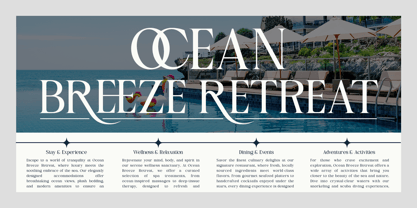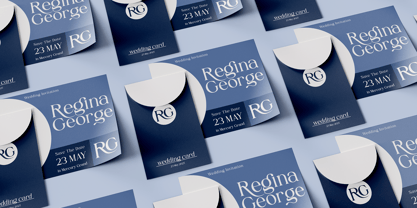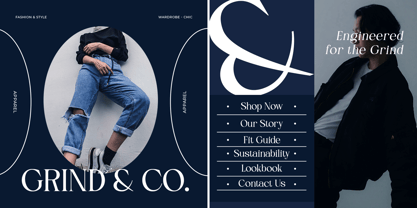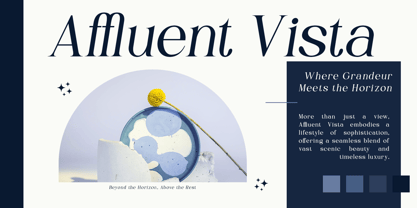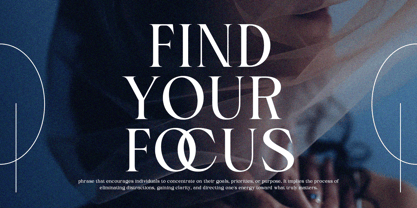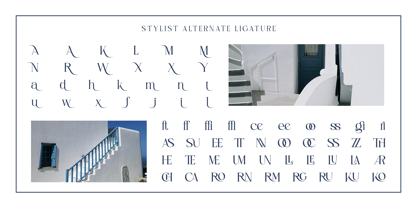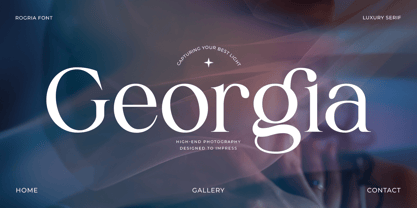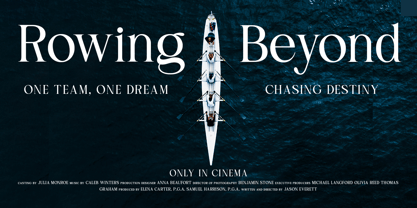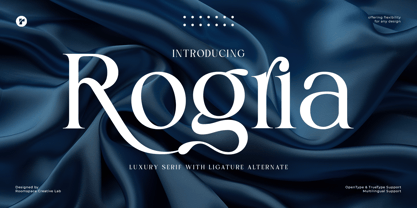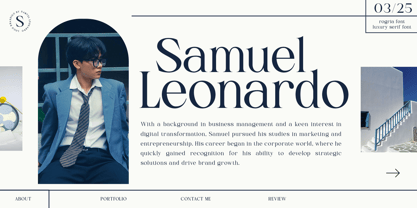
Rogria
The Rogria Font Family was designed by Bakhrudin Ja'far and published by Jafar07. Rogria contains 2 styles and family package options.
Rogria Serif is a sophisticated typeface designed for creatives who value refined typography and timeless aesthetics. With its dramatic contrast and sculptural curves, it brings a unique voice to high-end branding and editorial design. Rogria Serif’s elegant strokes and strong vertical stress convey luxury, structure, and modern poise in every headline or title.
Crafted with a premium audience in mind, this font is ideal for industries such as fashion, skincare, publishing, hospitality, and wedding services. Its legibility at various sizes and multilingual support makes it a versatile asset for designers working across global markets. From printed magazines to digital ads, Rogria Serif adds character and charm to every composition.
When your message demands elegance and authority, Rogria Serif becomes the visual voice your brand deserves. Designed to make a bold yet graceful impact, it invites your audience into a world of sophistication, trust, and artistic expression. Choose Rogria Serif and design with timeless clarity.